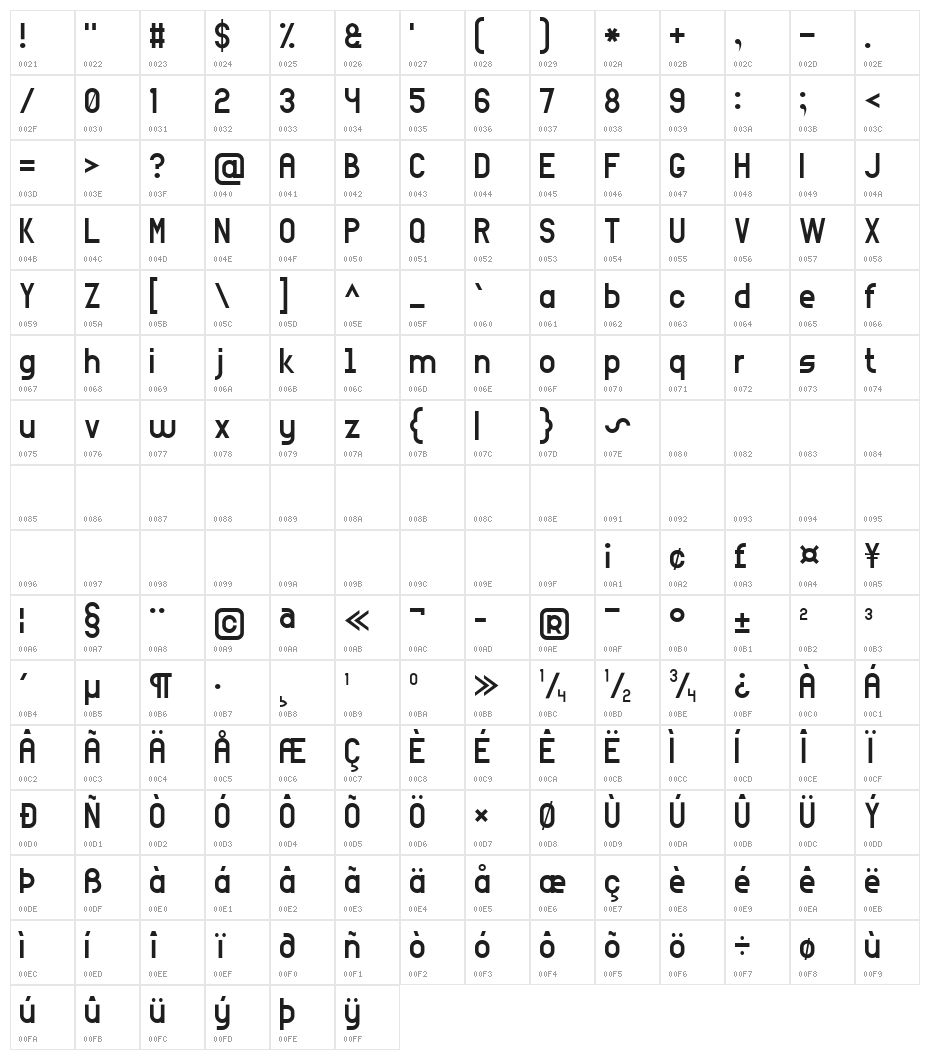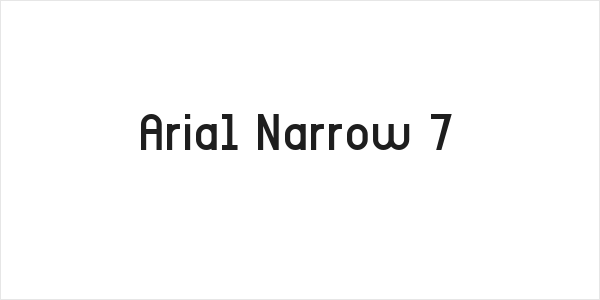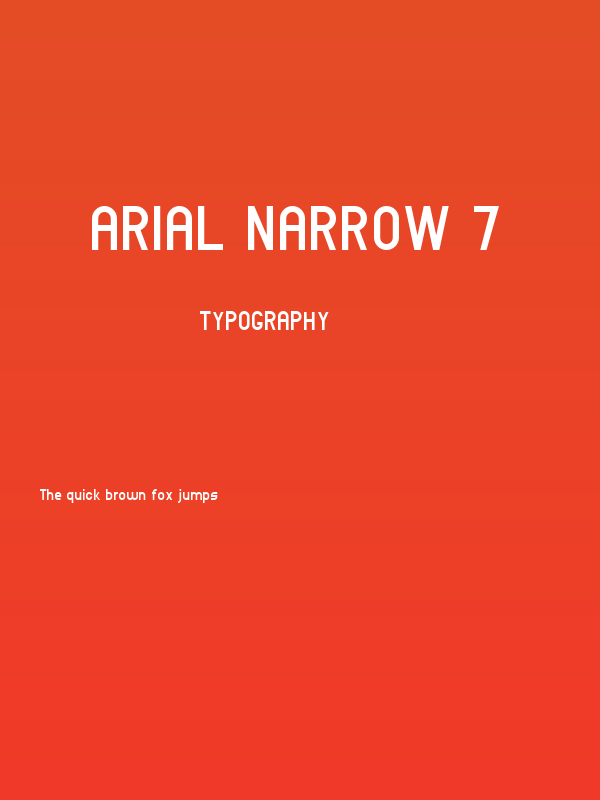
Arial Narrow 7 Font
Arial Narrow 7 Description
This font features a clean and modern sans-serif style with a narrow width, making it ideal for space-saving applications. The characters are uniformly designed with a consistent stroke width, providing a sleek and professional appearance. The uppercase and lowercase letters are well-proportioned, and the numerals are clear and easy to read. Special characters are distinct and maintain the overall aesthetic of the font. Its simplicity and readability make it versatile for various design needs.
| Proposed Projects | Ideal for use in business documents, websites, and presentations where space is limited. Suitable for headlines, subheadings, and body text in both print and digital media. |